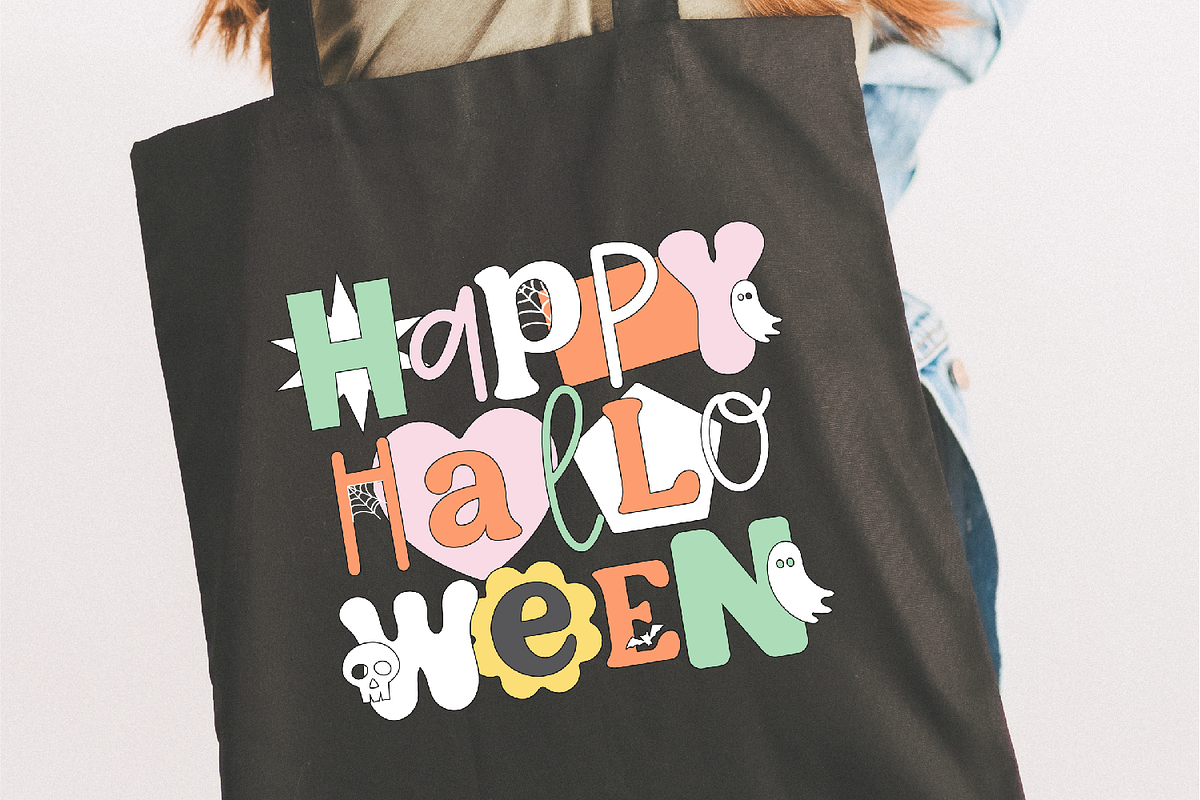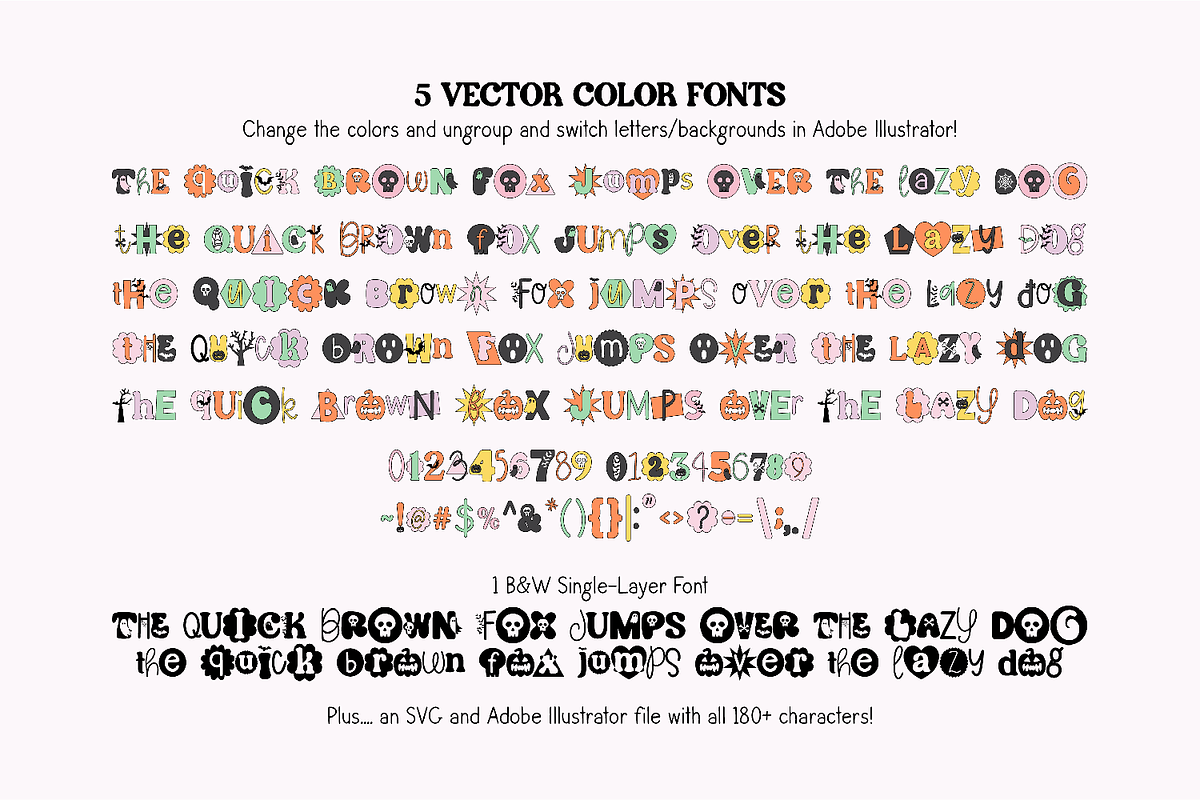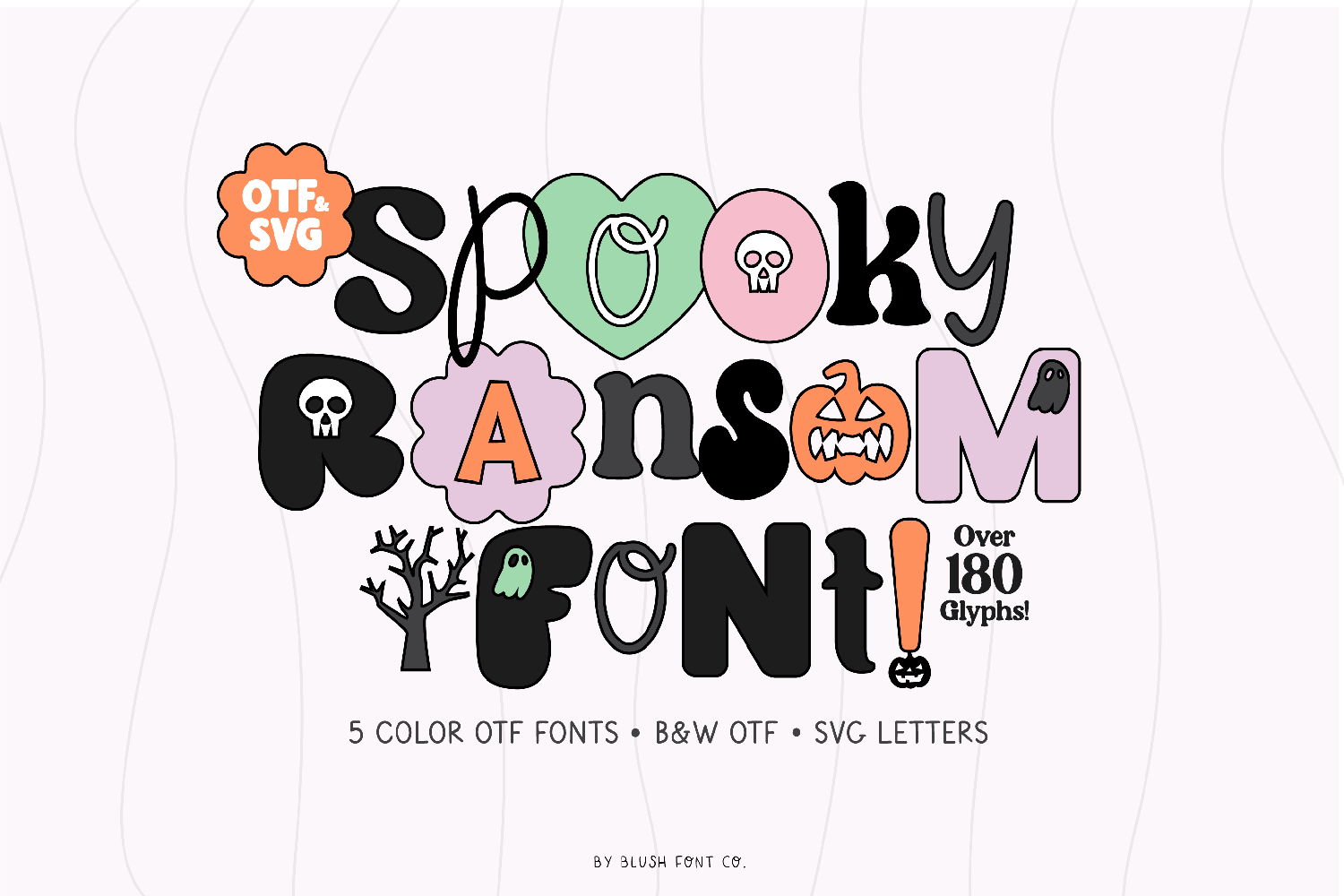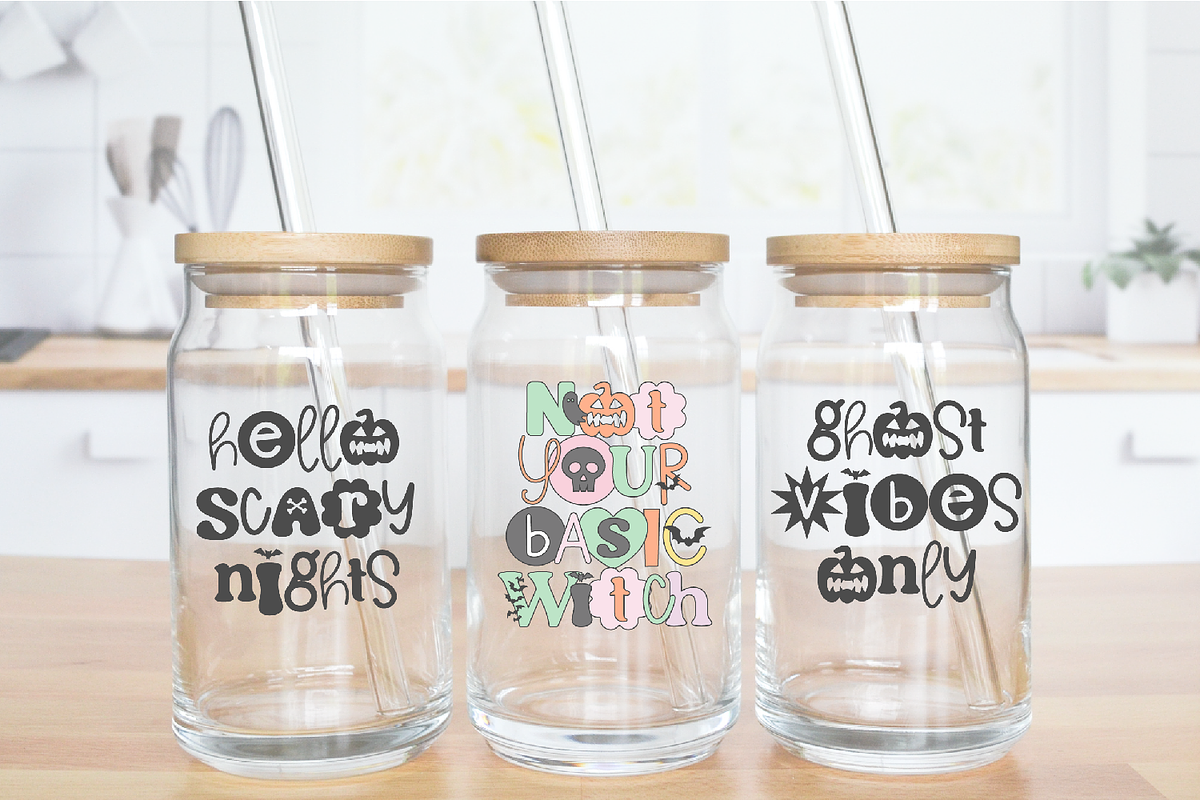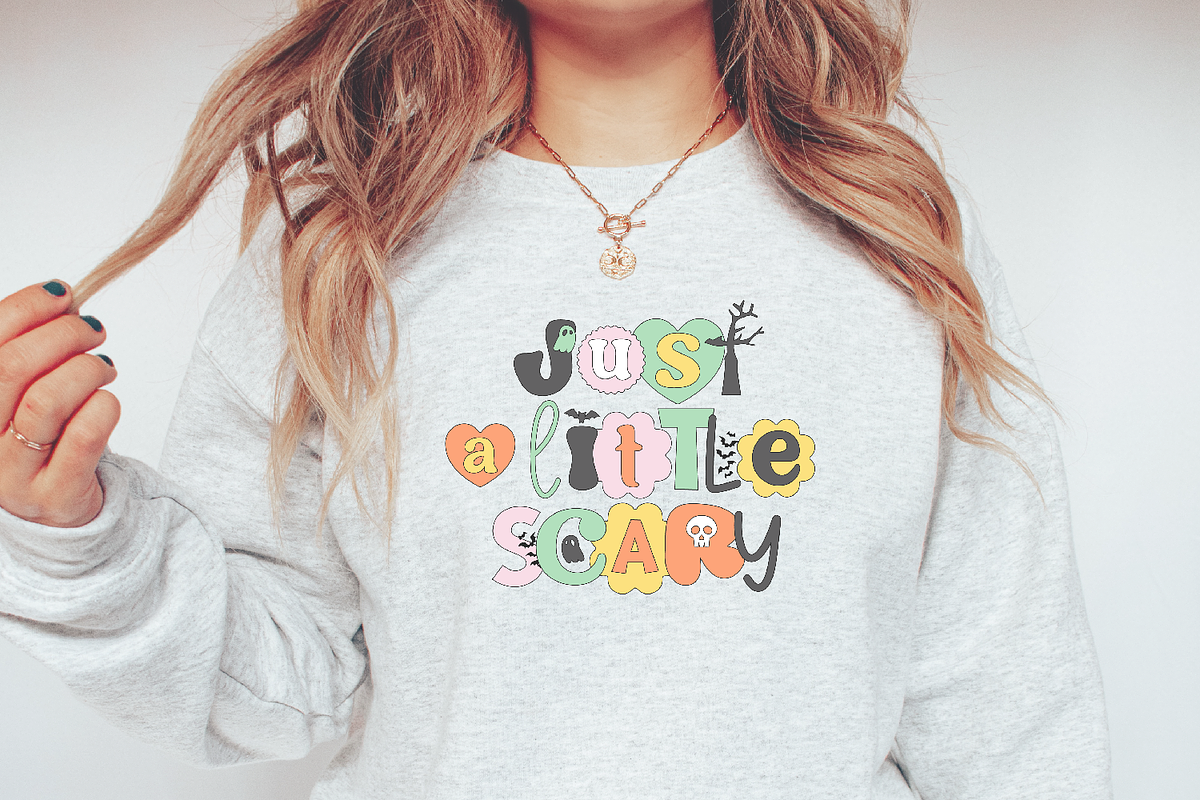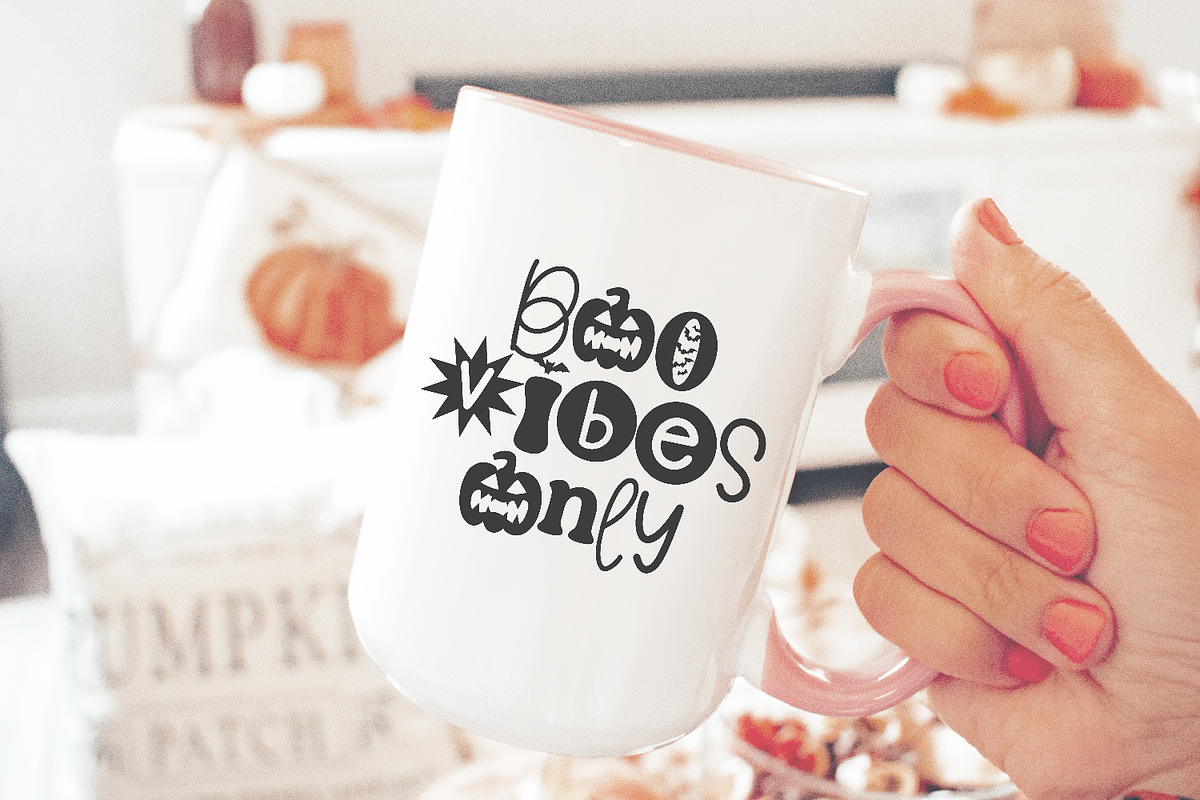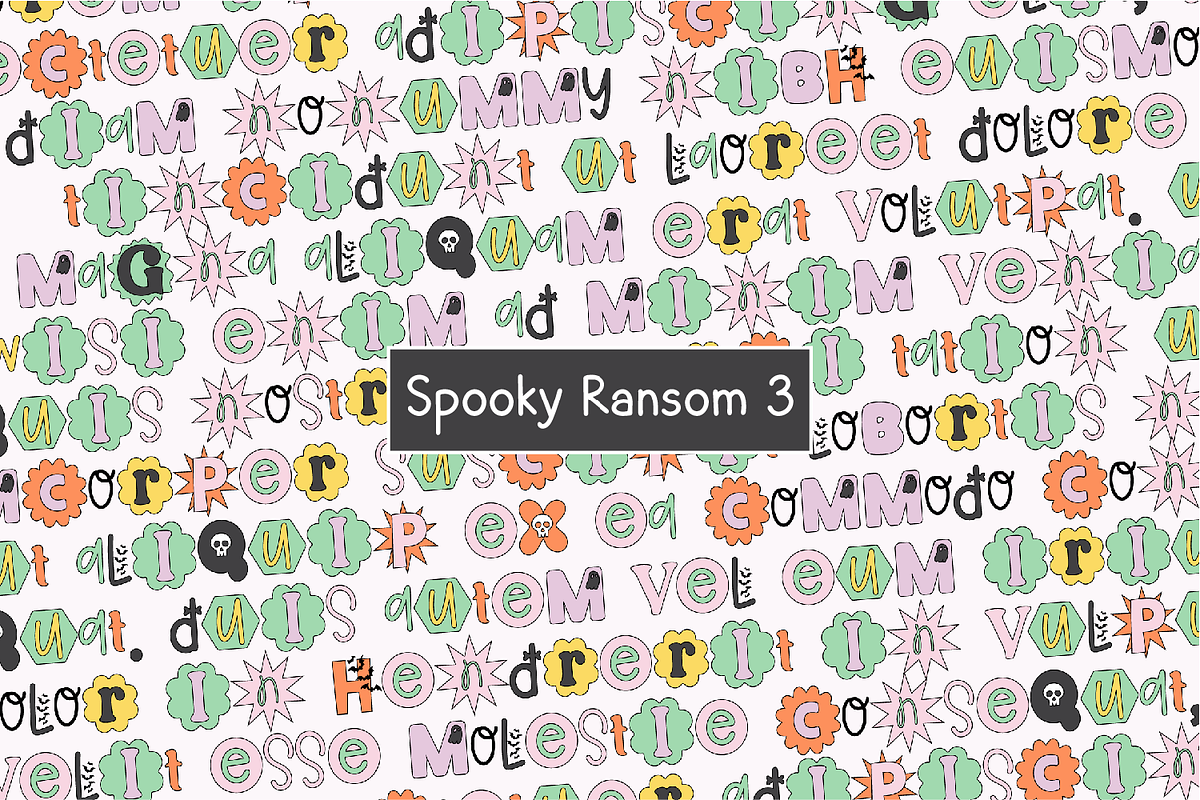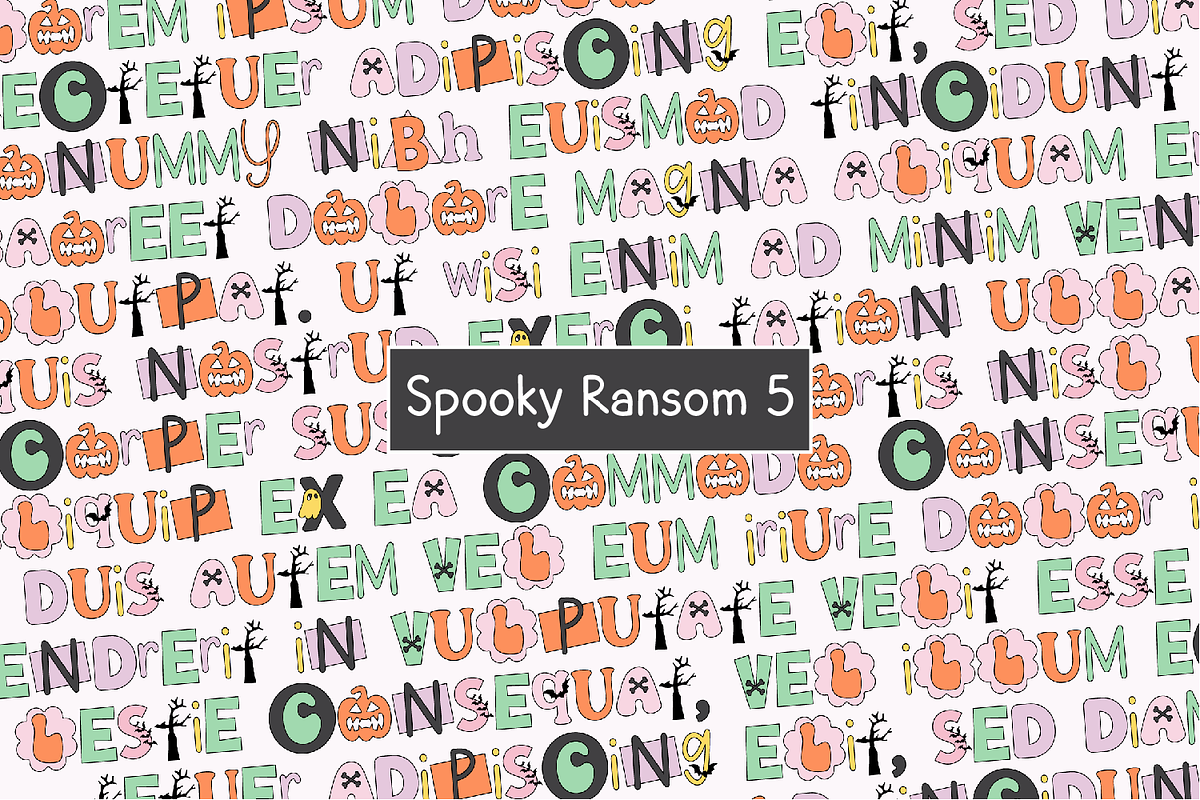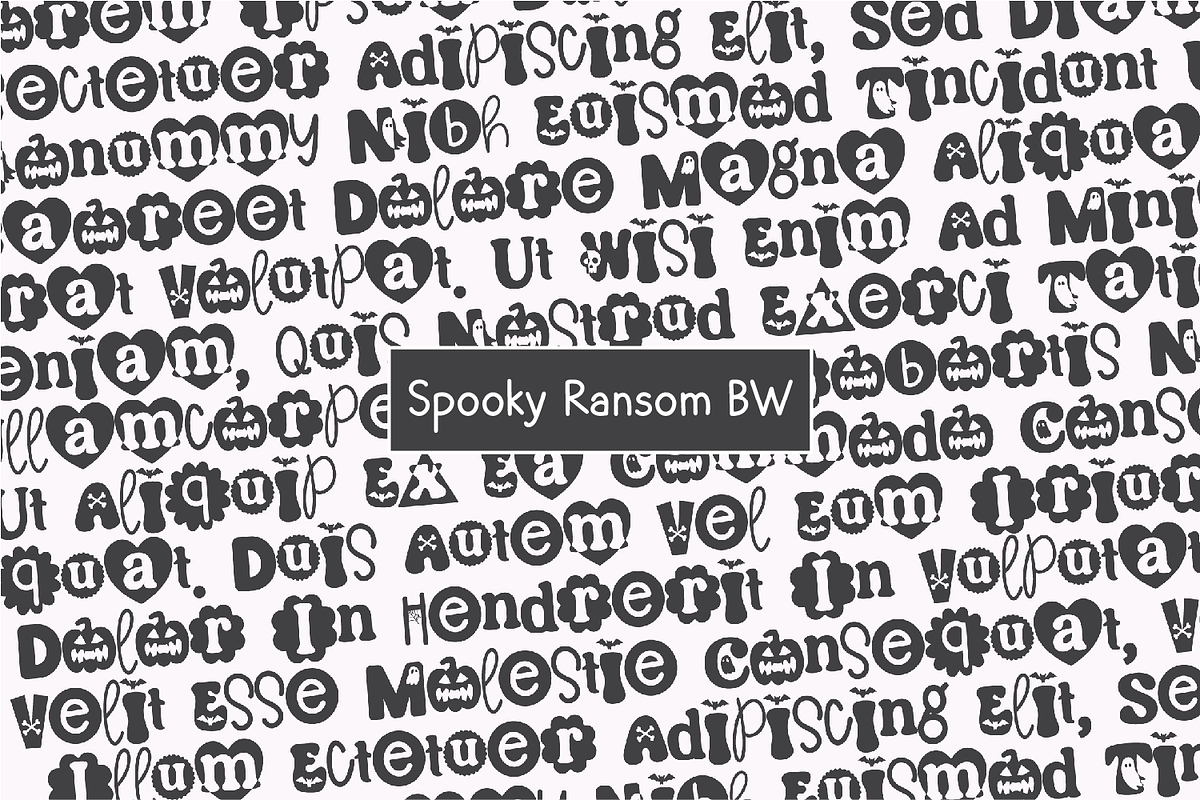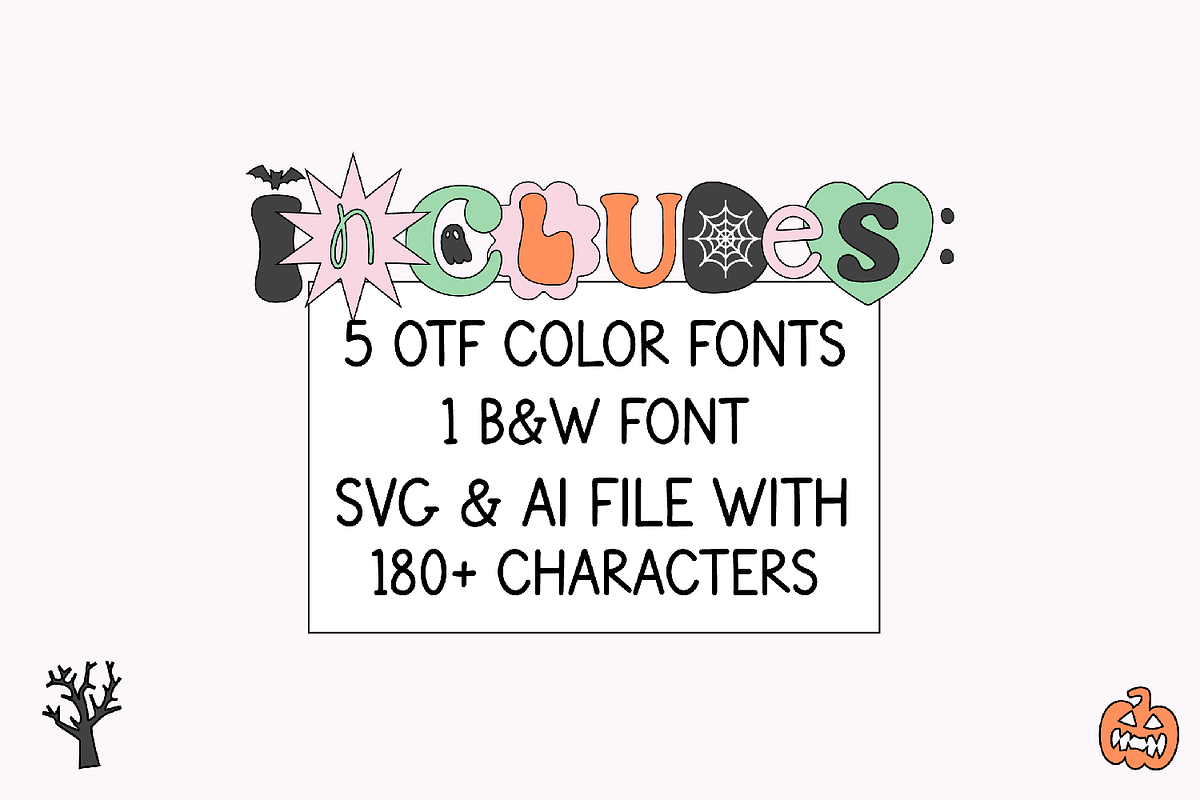
SPOOKY RANSOM Halloween Cut Out Font
SPOOKY RANSOM HALLOWEEN CUT-OUT FONT
When using the OTF files in Illustrator, you can change the colors or even swap backgrounds and letters to make the exact designs you wish!